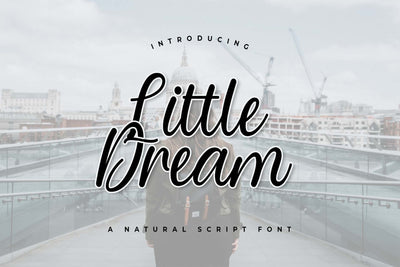
Little Dream - A Natural Script Font
Little Dream is a trendy handwritten font with a contemporary atmosphere and impeccable form, inspired by timeless classic calligraphy. It will add elegance and class to any of your design projects.